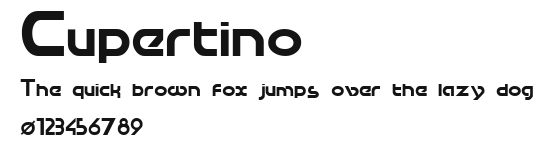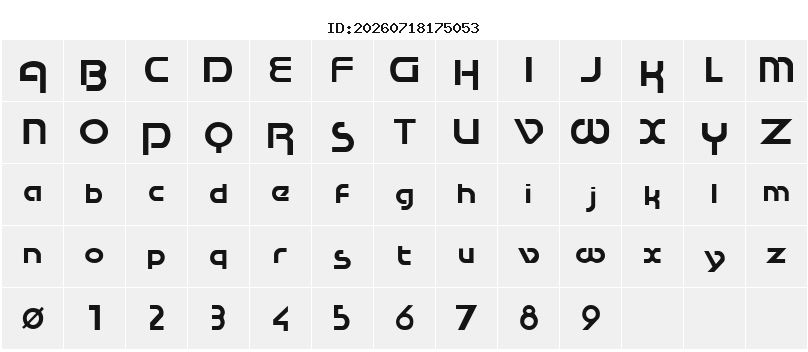
• Font Name: Cupertino
About Cupertino.ttf
Cupertino.ttf is a modern, elegant sans-serif font designed for ultimate readability and visual harmony. Perfect for branding, headlines, web design, and print materials.